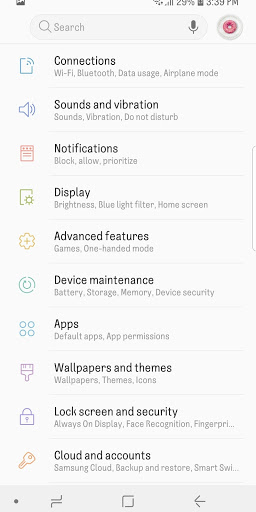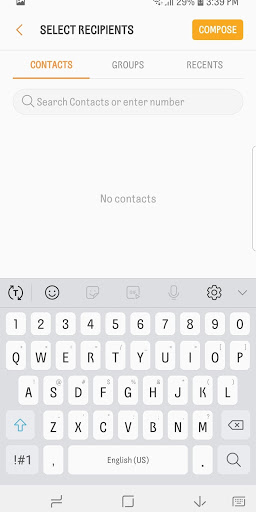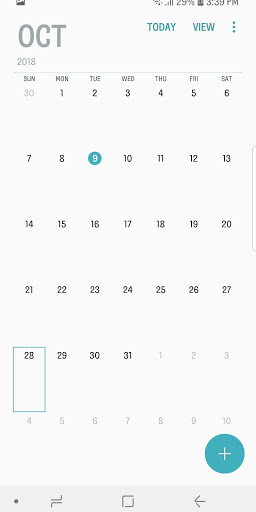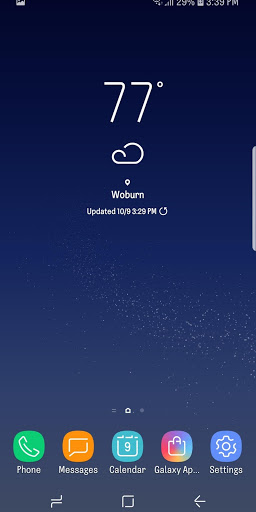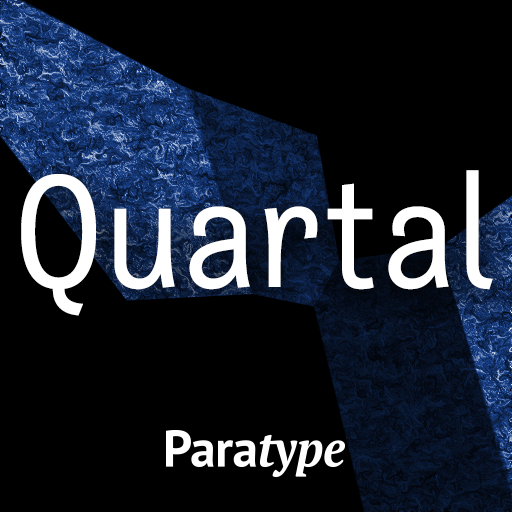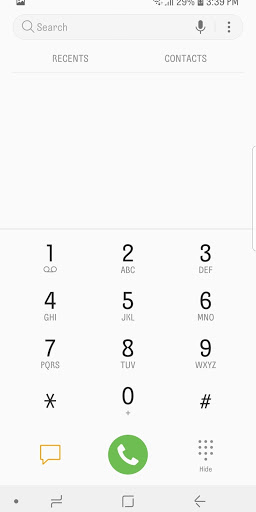
Quartal Latin and Cyrillic FlipFont
Description of Quartal Latin and Cyrillic FlipFont
Quartal™ by Paratype is a modern and stylish font. Its unique, memorable appearance will make your device special.
Pan-European and Cyrillic character set supports Western, Central and Eastern European as well as Belarusian, Bulgarian, Macedonian, Russian, Serbian and Ukrainian languages.